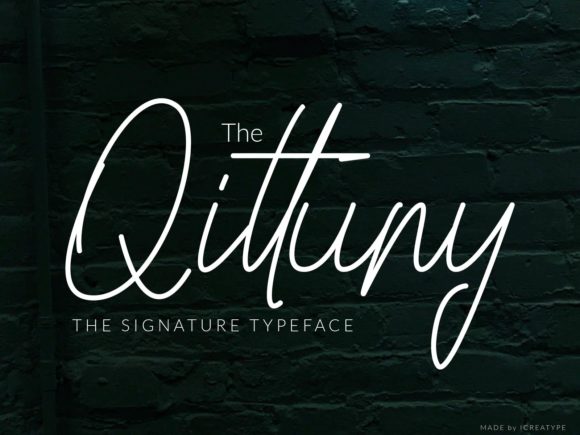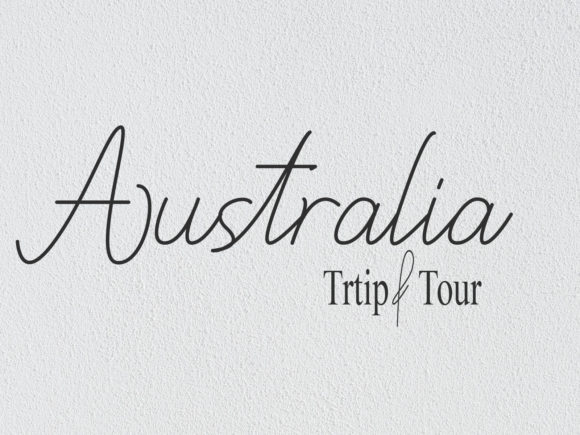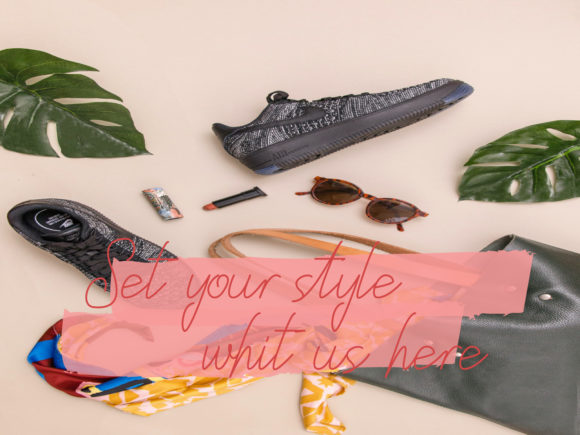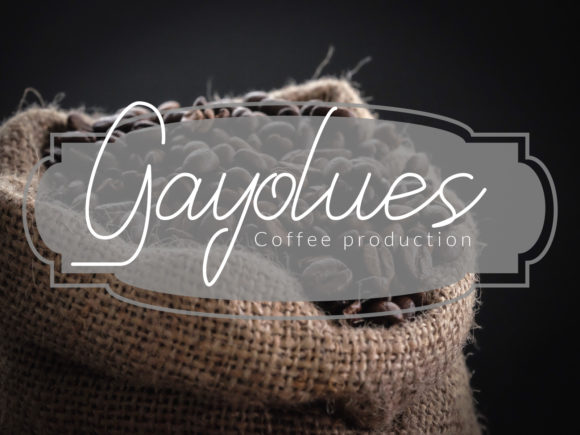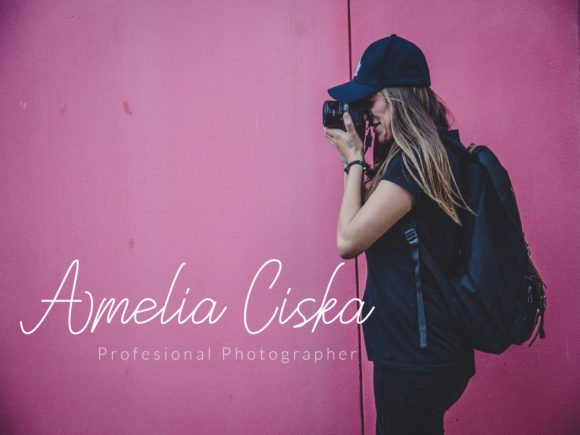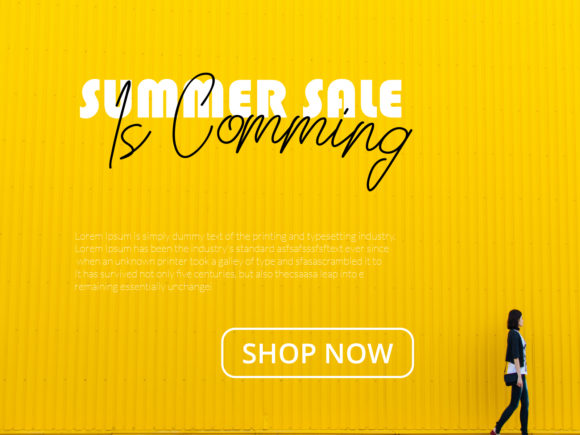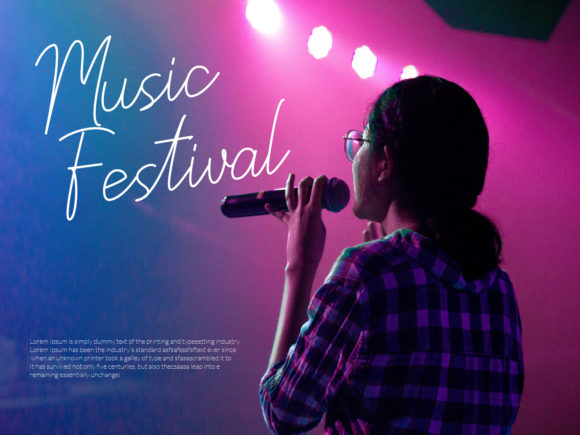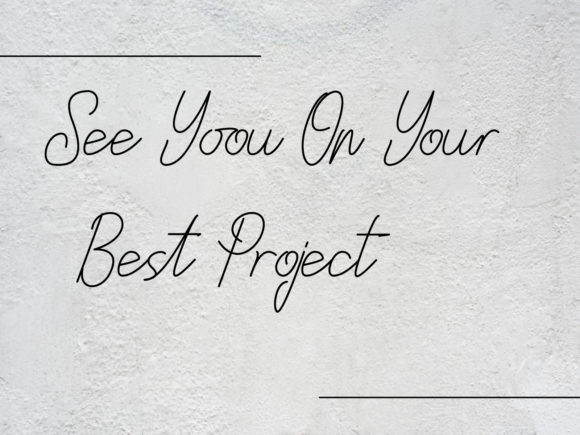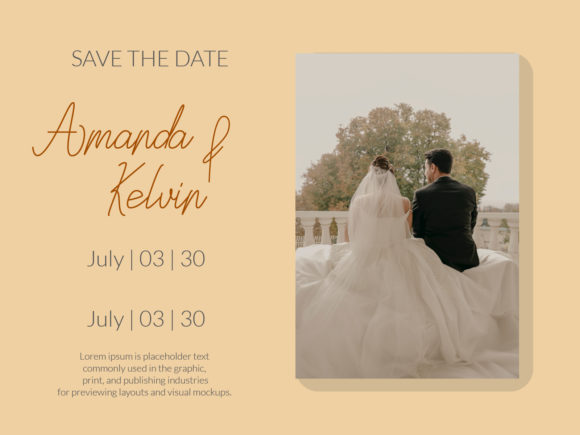
Qittuny Font
About Qittuny Font
Qittuny, a font that epitomizes delicacy and elegance, is a true masterpiece in the realm of handwritten design. With meticulously crafted characters and a perfect balance, it possesses a unique charm that elevates a myriad of design projects to extraordinary heights.
At first glance, Qittuny captures the heart with its graceful and flowing strokes. Each letter is a testament to the artistry and precision invested in its creation, resulting in a font that exudes sophistication and refinement. Its beauty lies in its simplicity, where each character seamlessly connects to the next, forming a harmonious and captivating visual experience.
The versatility of Qittuny knows no bounds. Whether you’re crafting a wedding invitation, designing a logo, composing a quote, or engaging in any creative endeavor, this font effortlessly transforms ordinary ideas into extraordinary works of art. Its well-balanced characters and timeless appeal make it an ideal choice for those who seek to infuse their designs with an understated yet impactful elegance.
Qittuny’s strength lies in its ability to adapt to a wide spectrum of design contexts. Its delicate nature complements the formal, while its flowing lines bring a touch of casual grace to more relaxed designs. Whether it’s a classic wedding invitation or a modern social media post, Qittuny’s versatility ensures that it seamlessly integrates into any project, enhancing its visual appeal and leaving a lasting impression.
The craftsmanship behind Qittuny is evident in its careful design. Each curve, line, and stroke has been meticulously considered, resulting in a font that maintains its elegance and readability across various platforms and sizes. The well-balanced characters create a fluid and captivating rhythm, allowing the text to unfold like a symphony of visual beauty.
By introducing Qittuny into your creative endeavors, you’ll witness its transformative power firsthand. Your designs will be infused with a sense of refinement and grace that only a truly exceptional font can provide. Qittuny becomes a partner in your creative process, enhancing your ideas and allowing them to shine with an added layer of sophistication.
As you incorporate Qittuny into your projects, you’ll observe how it breathes life into your creative visions. Its delicate yet impactful presence will make a profound difference, turning everyday designs into extraordinary works of art. Its beauty lies not only in its well-designed characters but in its ability to seamlessly convey emotions and messages with an elegance that resonates with any audience.
Qittuny is more than just a font; it’s an embodiment of artistic excellence. Its delicate elegance is a timeless attribute that will remain a cherished element in your design toolkit. With Qittuny by your side, you’ll be able to create designs that stand out, captivate, and leave a lasting impression on anyone who encounters them.